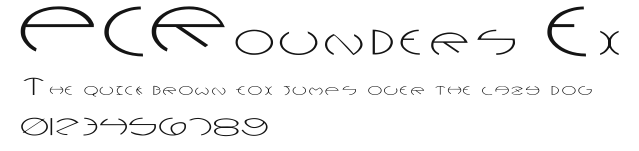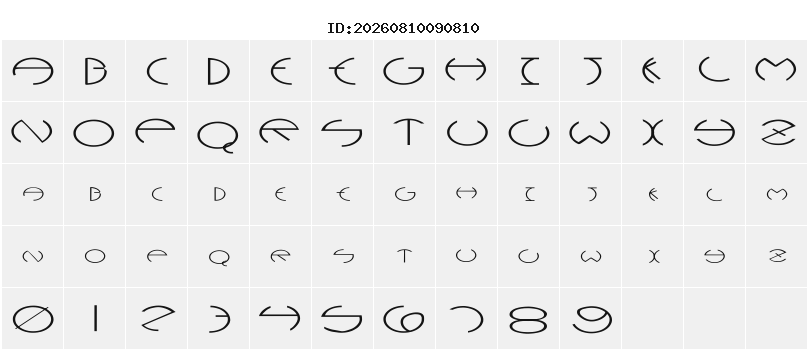
PCRounders Ex Preview
• Font Name: PCRounders Ex
• Full Font Name: PCRounders Ex
About PCRounders Ex.ttf
PCRounders Ex.ttf is a modern, elegant sans-serif font designed for ultimate readability and visual harmony. Perfect for branding, headlines, web design, and print materials.